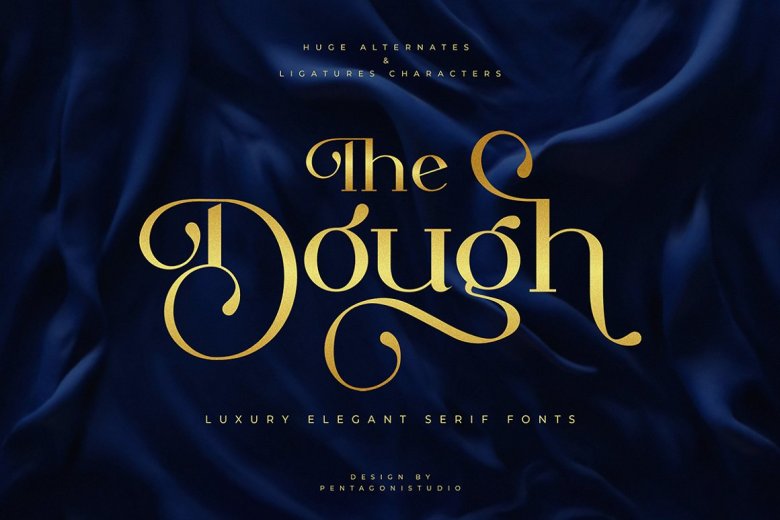
The Dough Font
The Dough is a luxury stylish Serif Font inspired by expensive serif typeface. Perfect for branding projects, Logo design, Clothing Branding, product packaging, magazine headers, or simply as a stylish text overlay to any background image.
The Dough Serif Font